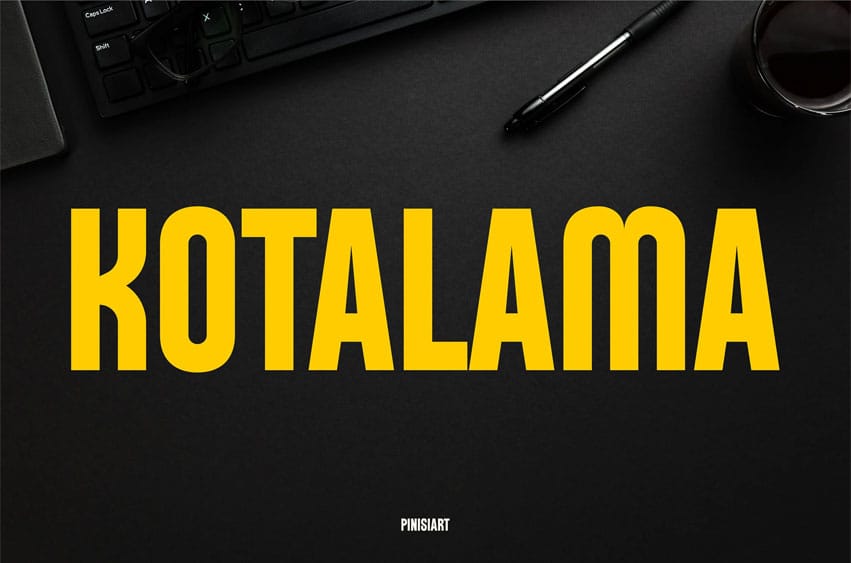
Kotalama Font is a clean, bold, and highly legible sans serif crafted for modern corporate needs. Designed to look confident in pitch decks, annual reports, startup branding, and financial campaigns, this font speaks the language of leadership and innovation. With its sharp edges and consistent rhythm, KOTALAMA brings executive presence to every layout.
Whether you’re launching a fintech startup, presenting trade data, or headlining a business summit, this font gives structure and authority to your message. Built with versatility in mind, it pairs perfectly with vibrant accents or minimalist grids, adapting to global brands and digital-first presentations.
- Bold & Professional Style – Strong typographic form for business and finance
- Perfect for Branding & Slide Decks – Built for keynote titles, speaker intros, and business talks
- High Readability – Crisp spacing and shape harmony for long content or impactful headlines
- Clean Modern Geometry – Balanced forms that deliver clarity and confidence
Use KOTALAMA when your words need to deliver results.